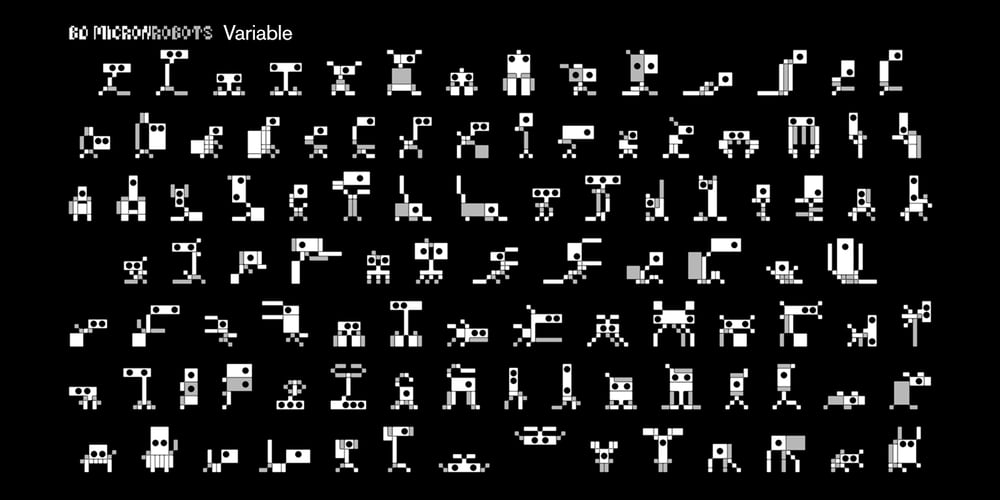
BD Micron Robots
BD Micron Robots font
BD Micron Robots Font Family was designed by Lorenz (Lopetz) Gianfreda and published by Typedifferent. BD Micron Robots contains 3 styles and family package options. The BD Micron Robots variable dingbats font features 52 Microns – micro-tiny robot characters with 5 mutations. The variable font technology helped breathing live into the BD Micron Robots See them in action. The Muta1 version of the font shows the Micron Robots in its original shape. Muta5 is the final stage of the Micron Robots mutations. The Variable version of the Micron Robots font is a variable font and you can determine the grade of the mutation between Muta1 and Muta5 by yourself. By the way: The BD Micron Robots perfectly fit together with the BD Micron Font, also available here at MyFonts.